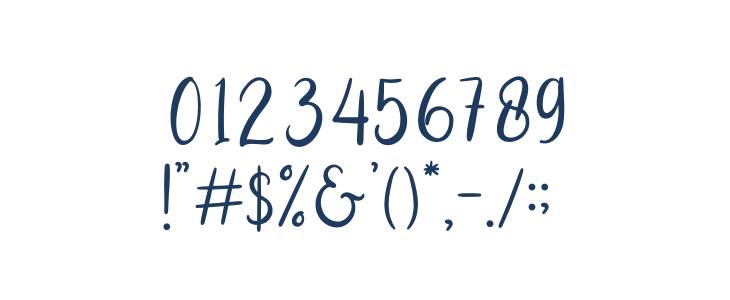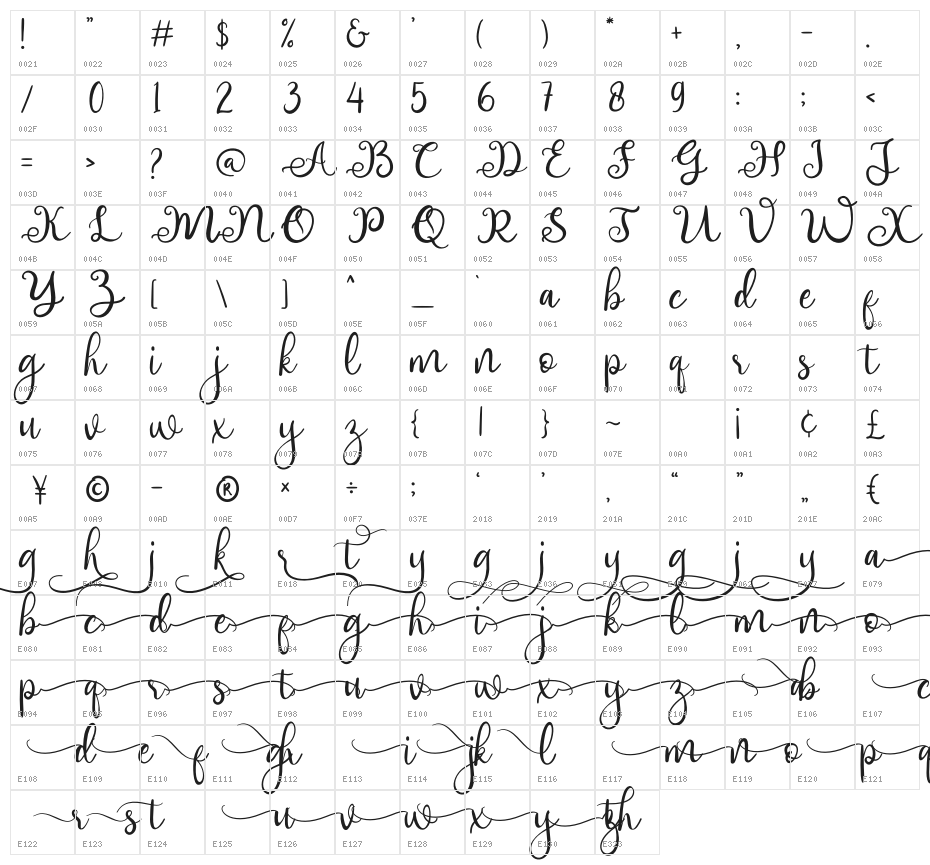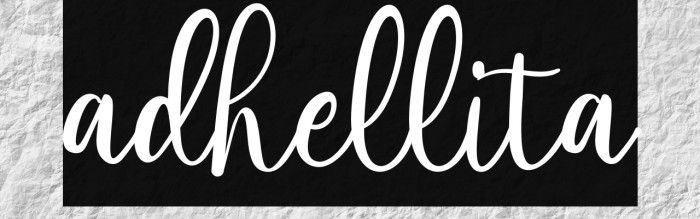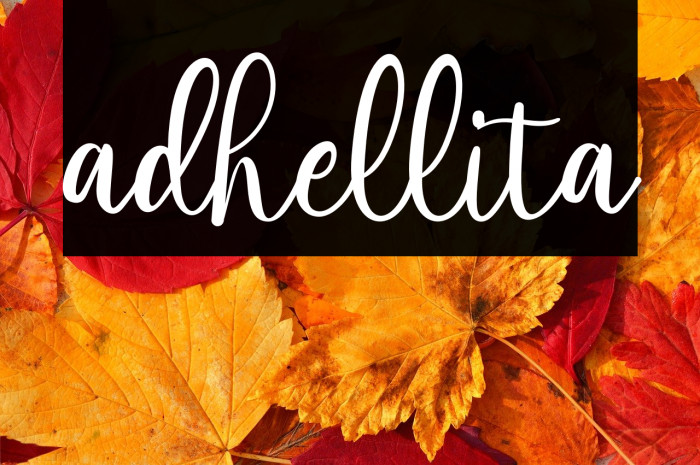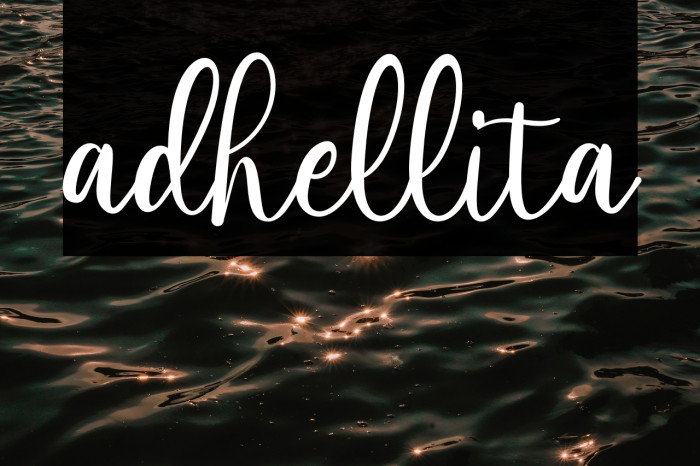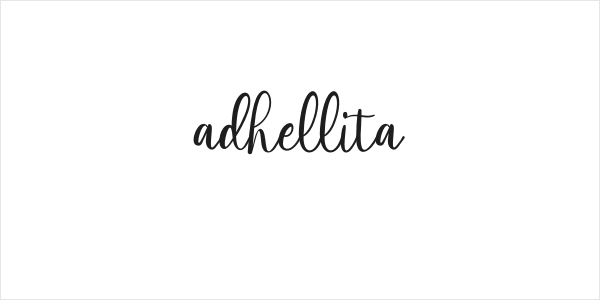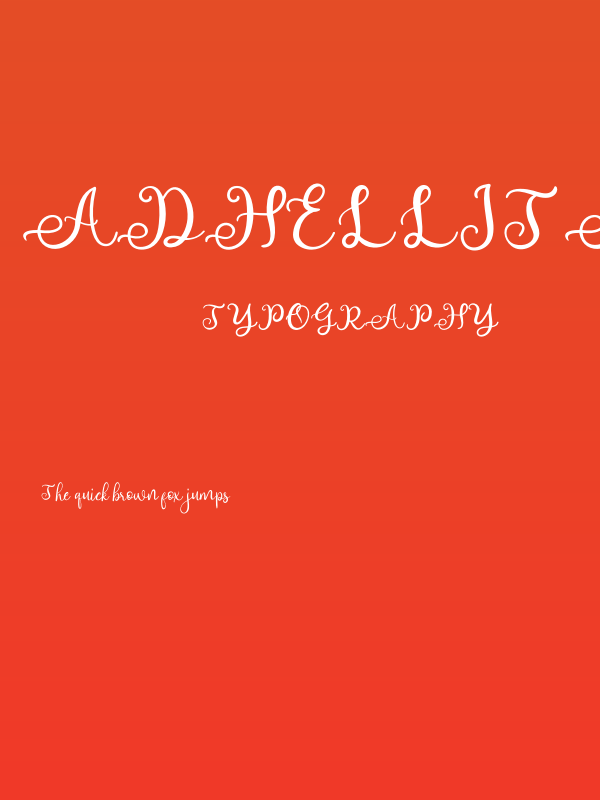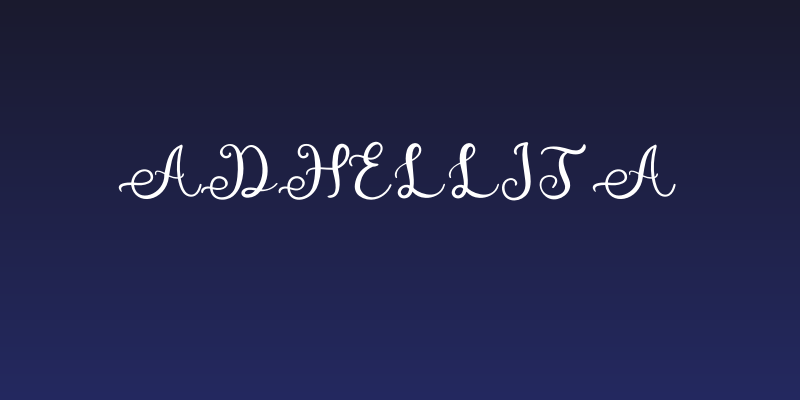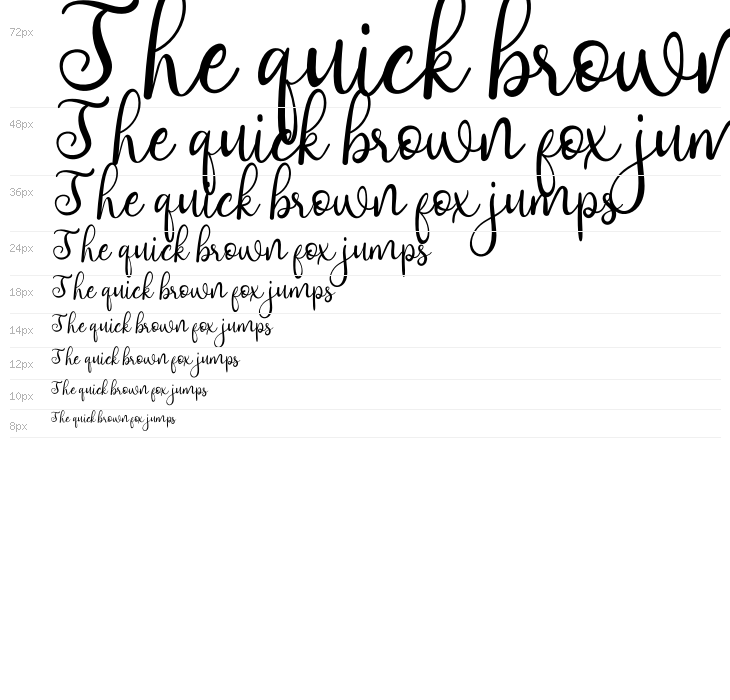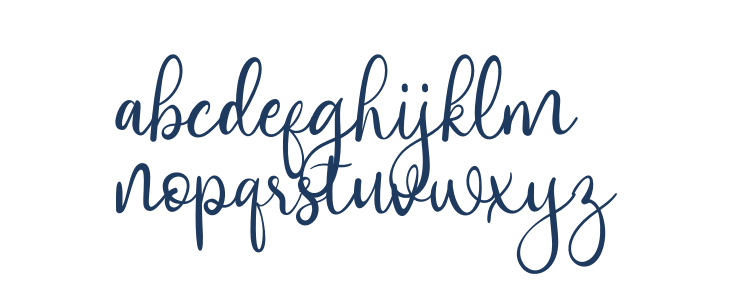
adhellita Font
adhellita Description
This font features an elegant and flowing script style, characterized by its intricate curls and loops that add a whimsical touch to each character. The uppercase letters are particularly ornate, with decorative swirls that enhance their visual appeal. The lowercase letters maintain a consistent flow, making them ideal for creating a cohesive and harmonious look. The numerals are clear and legible, while the special characters retain the font's signature style, ensuring a uniform appearance across all text elements. This font is perfect for projects that require a touch of elegance and sophistication, such as wedding invitations, greeting cards, and branding materials.